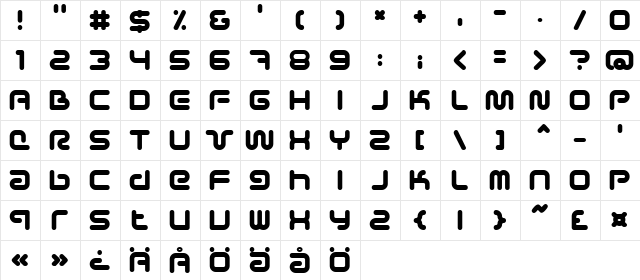
Sci Fied Bold
Design Context for Sci Fied Typeface
Sci Fied channels digital-age aesthetics through its sharp, structured letterforms — ideal for brands that want to signal innovation. Its bold stroke weight gives it real presence on the page.
Pro Tip: Try Sci Fied with generous letter-spacing in UI labels and navigation — the geometric forms benefit from room to breathe.